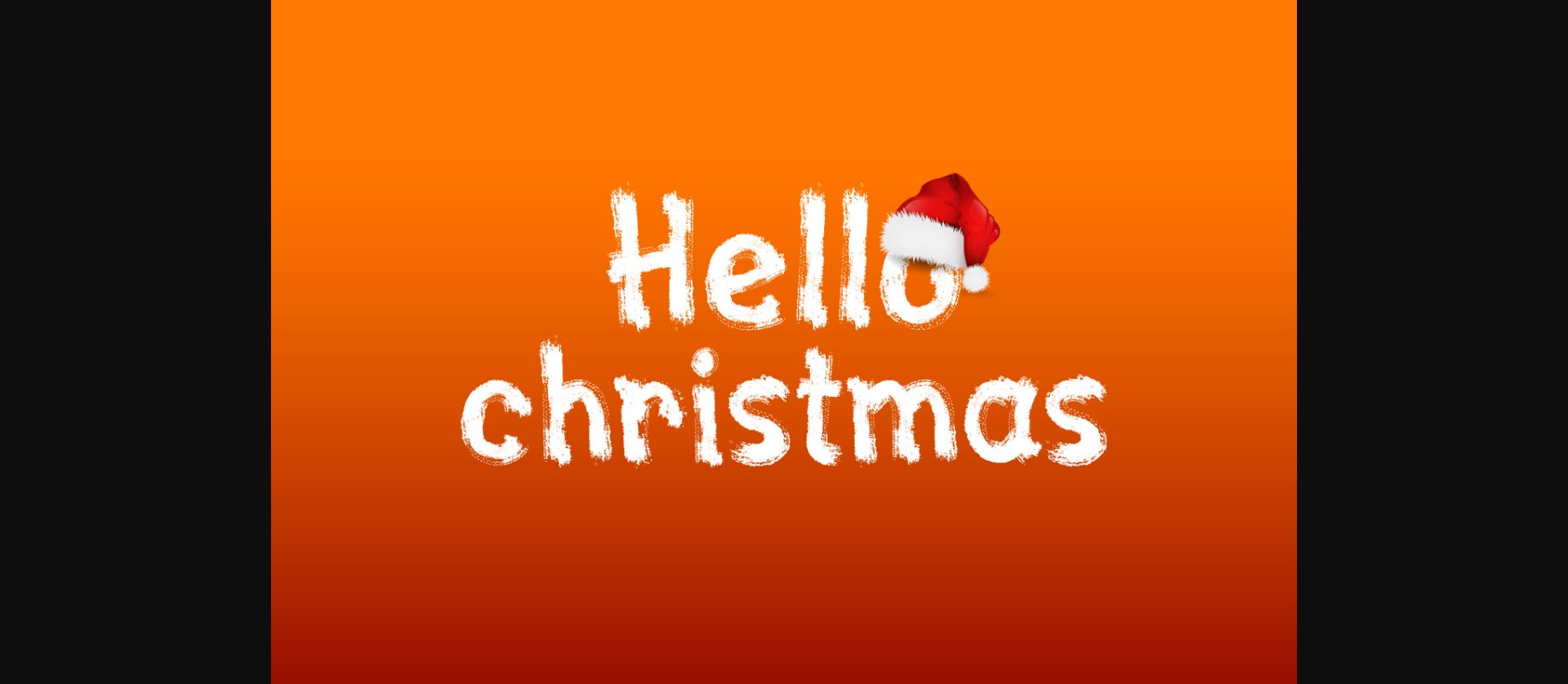
About Hello Christmas Font
Hello Christmas: A Gothic-Inspired, Decorative Font with Festive Flair. Perfectly capturing the Christmas spirit, this font exudes holiday charm. Ideal for film titles, trendy T-shirts, and enchanting book covers, it boasts 96 crafted glyphs and 95 expressive characters. Experience the beauty and versatility of this stunning typeface.